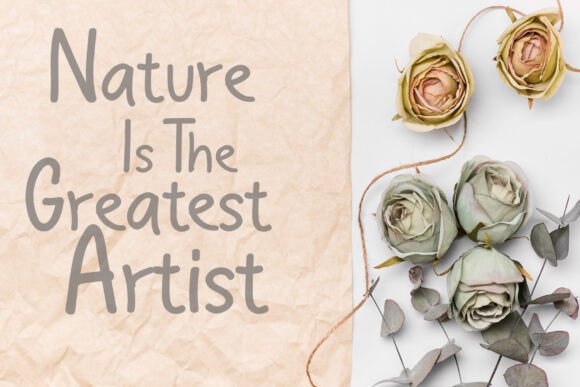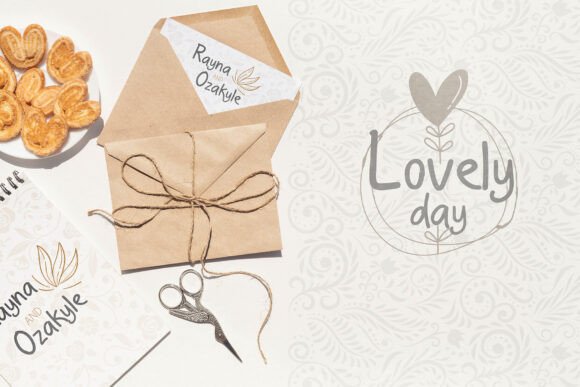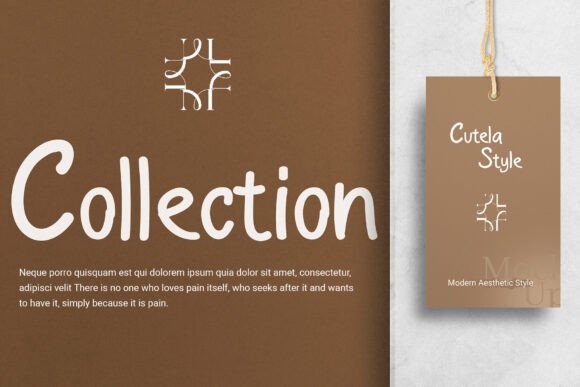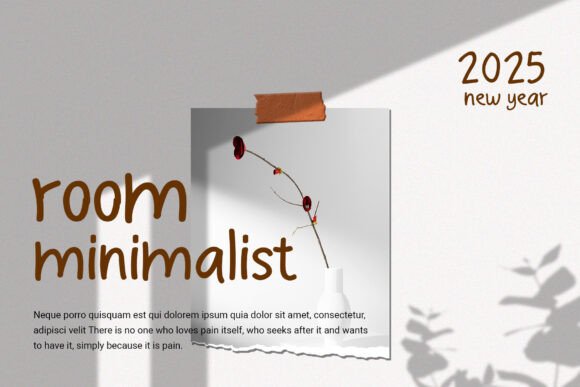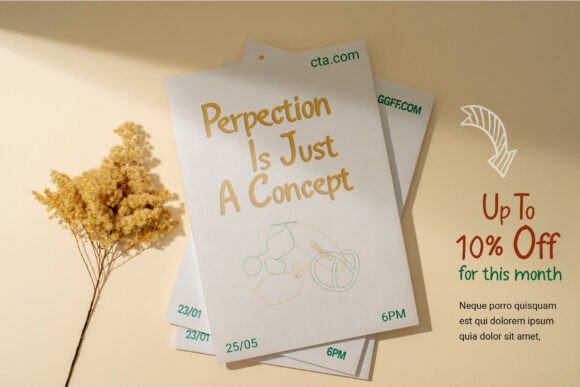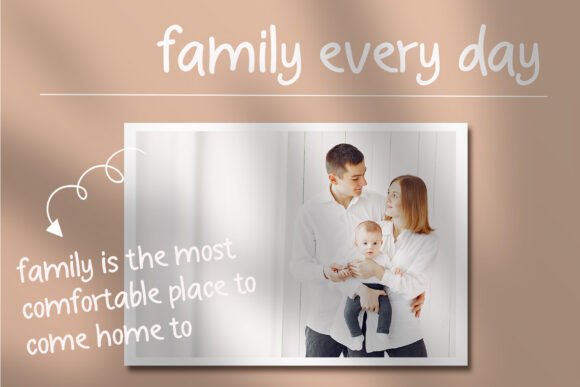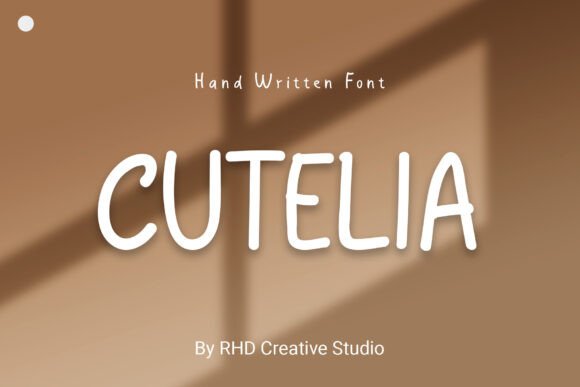
Introducing Cutelia Font: The Sweet and Friendly Handwritten Font for Your Creative Projects
Are you a designer, crafter, or DIY enthusiast looking for a font that can add a personal touch to your projects? Look no further than Cutelia Font, a sweet and friendly handwritten font that’s perfect for a wide range of designs. With its natural and unique style, Cutelia Font is incredibly versatile and can be used in various creative projects, from digital designs to handmade crafts.
The Characteristics of Cutelia Font
Cutelia Font is a handwritten font that exudes warmth and friendliness. Its natural and unique style makes it stand out from other fonts, and its sweetness is sure to capture the hearts of your audience. The font’s irregularities and imperfections give it a human touch, making it perfect for designs that require a personal and approachable feel.
One of the best things about Cutelia Font is its versatility. It can be used in a variety of designs, from:
- Digital designs, such as social media graphics, blog posts, and website headers
- Print designs, such as brochures, flyers, and business cards
- Handmade crafts, such as scrapbooking, card making, and journaling
- Stationery and paper crafts, such as invitations, gift tags, and labels
What Makes Cutelia Font So Special?
So, what makes Cutelia Font so special? Here are just a few reasons why designers and crafters love this font:
- Unique and handmade feel: Cutelia Font has a unique, handmade feel that sets it apart from other fonts. Its natural and irregular style gives it a personal touch that’s hard to find in digital fonts.
- Versatile and adaptable: Cutelia Font can be used in a wide range of designs, from digital designs to handmade crafts. Its versatility makes it a great addition to any designer’s or crafter’s font collection.
- Easy to read: Despite its handwritten style, Cutelia Font is easy to read and understand. Its clear and legible letters make it perfect for designs that require a personal touch but still need to be easy to read.
- Imagination is the limit: With Cutelia Font, the only limit is your imagination! You can use it to create a wide range of designs, from simple and elegant to complex and playful.
How to Use Cutelia Font in Your Designs
Using Cutelia Font in your designs is easy! Here are a few tips to get you started:
- Pair it with other fonts: Cutelia Font pairs well with other fonts, such as sans-serif fonts, script fonts, and serif fonts. Experiment with different font combinations to find the perfect look for your design.
- Use it for headings and titles: Cutelia Font is perfect for headings and titles, where its unique and handmade style can really shine.
- Add it to your digital designs: Cutelia Font can be used in digital designs, such as social media graphics, blog posts, and website headers. Its clear and legible letters make it easy to read on digital screens.
- Use it for handmade crafts: Cutelia Font is also perfect for handmade crafts, such as scrapbooking, card making, and journaling. Its unique and handmade style adds a personal touch to any craft project.
In conclusion, Cutelia Font is a sweet and friendly handwritten font that’s perfect for designers and crafters. Its natural and unique style makes it incredibly versatile, and its ease of use makes it a great addition to any designer’s or crafter’s font collection. Whether you’re creating digital designs or handmade crafts, Cutelia Font is sure to add a personal touch to your projects. So why wait? Download Cutelia Font today and let your imagination run wild!